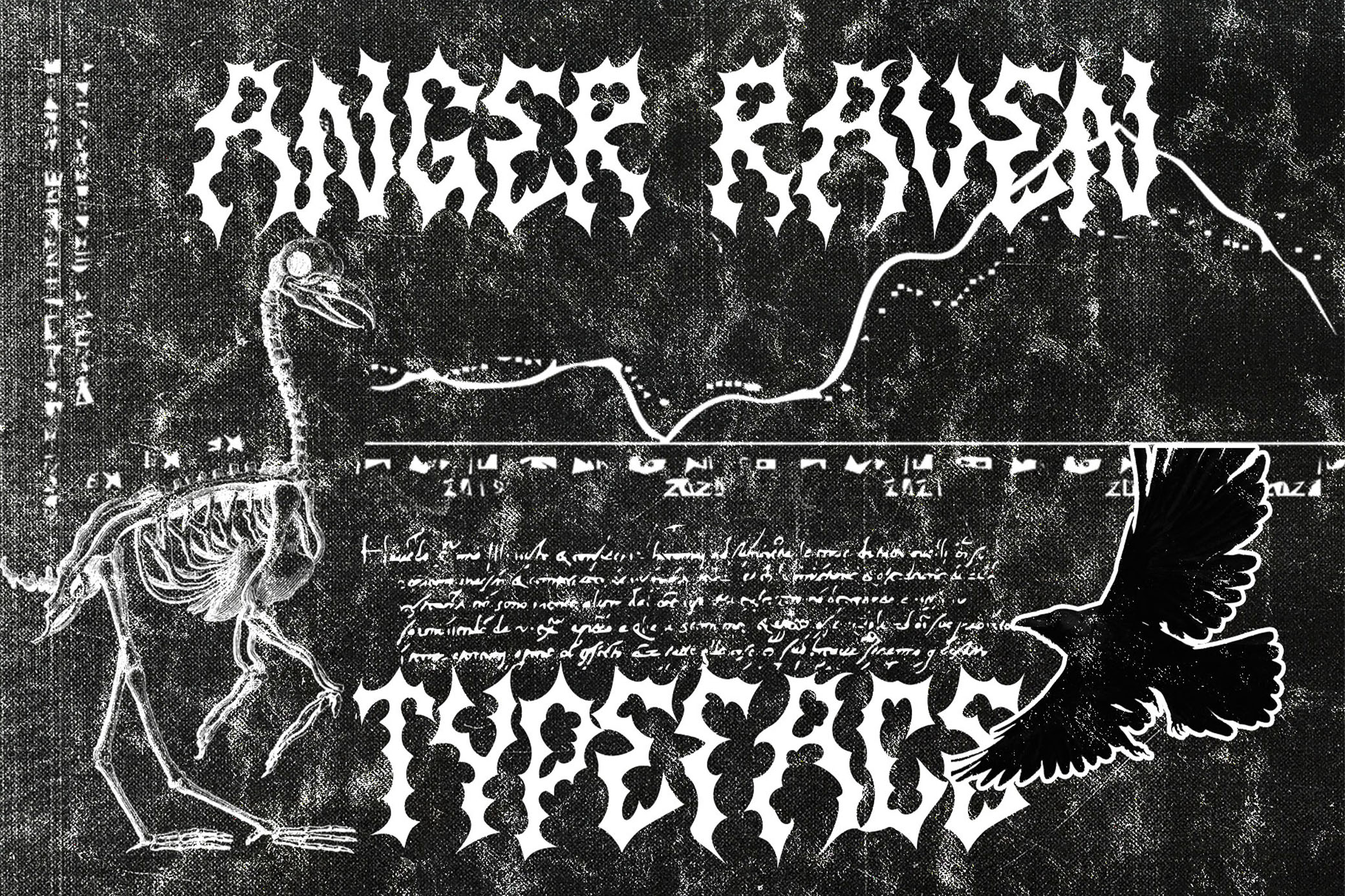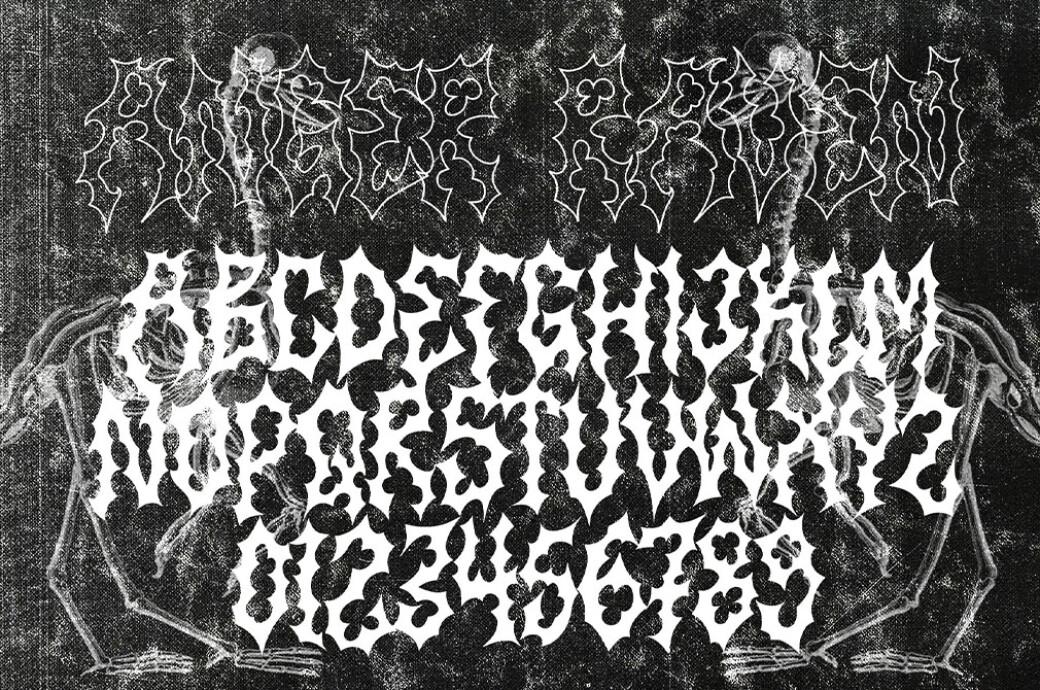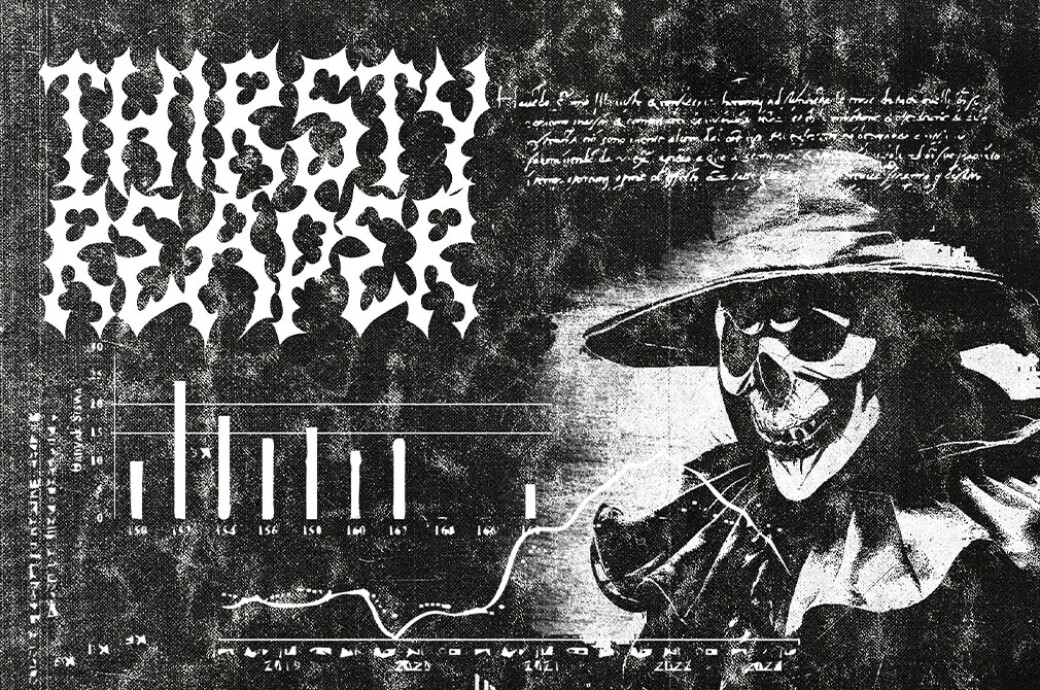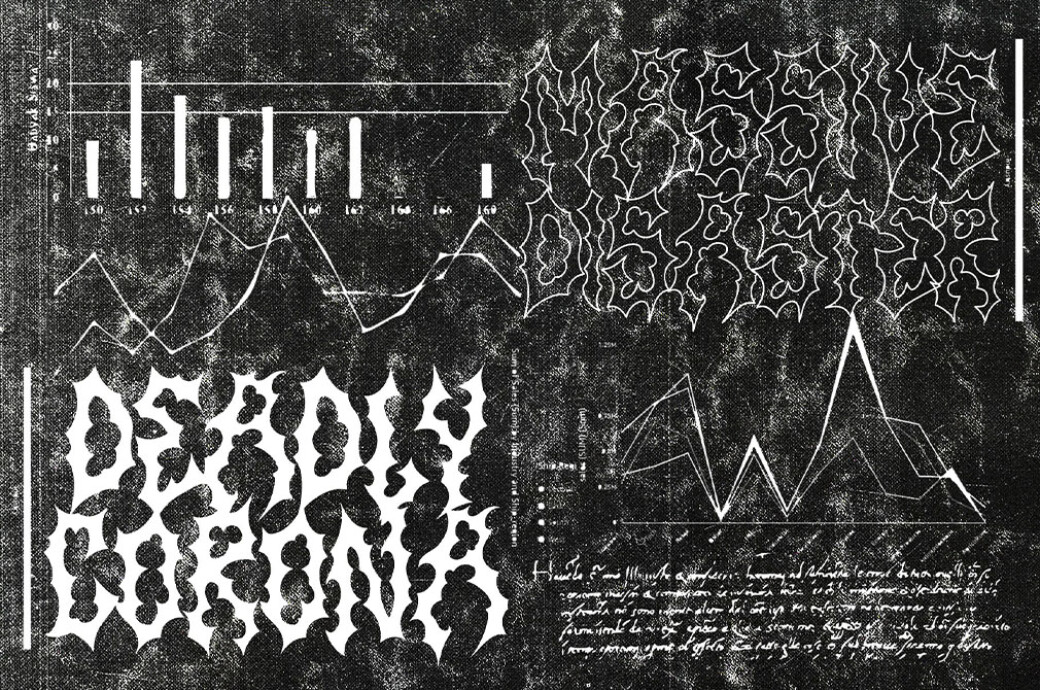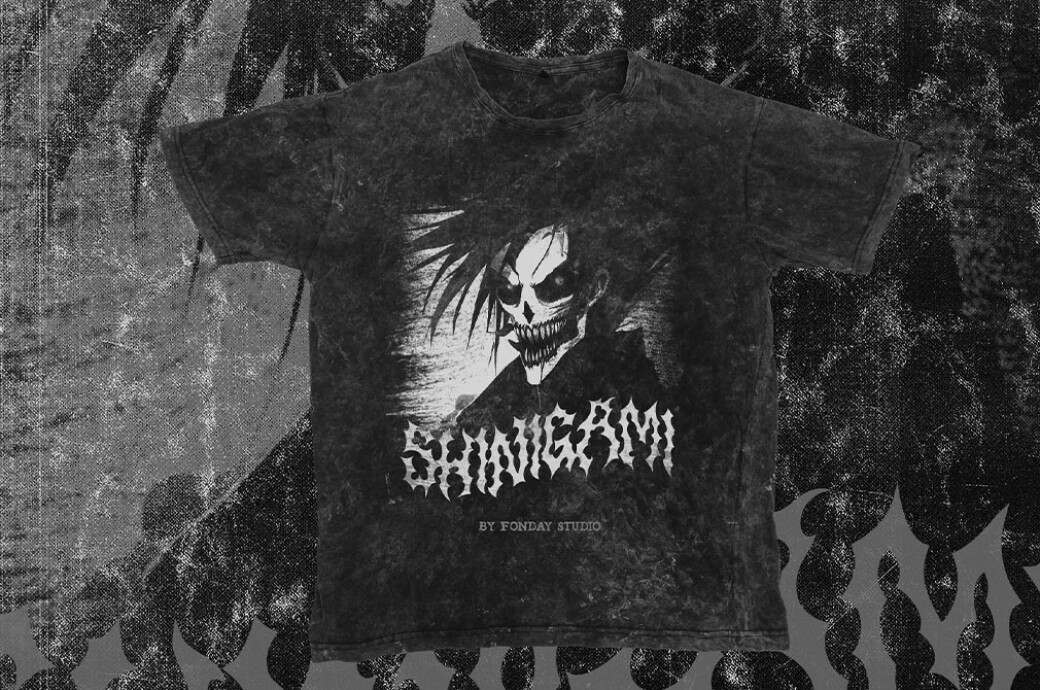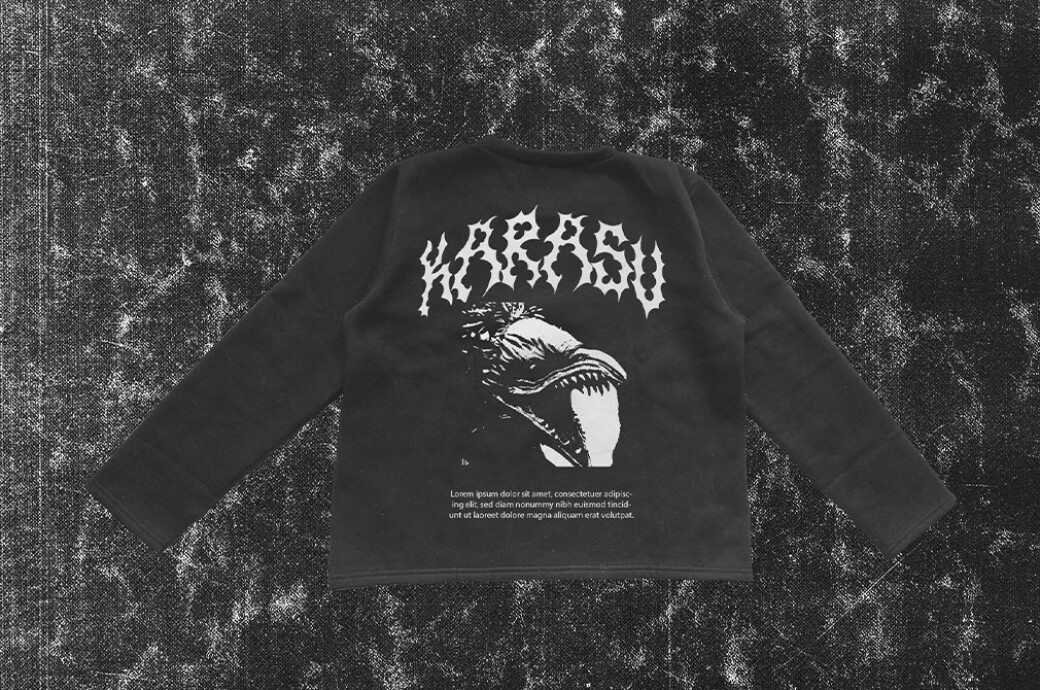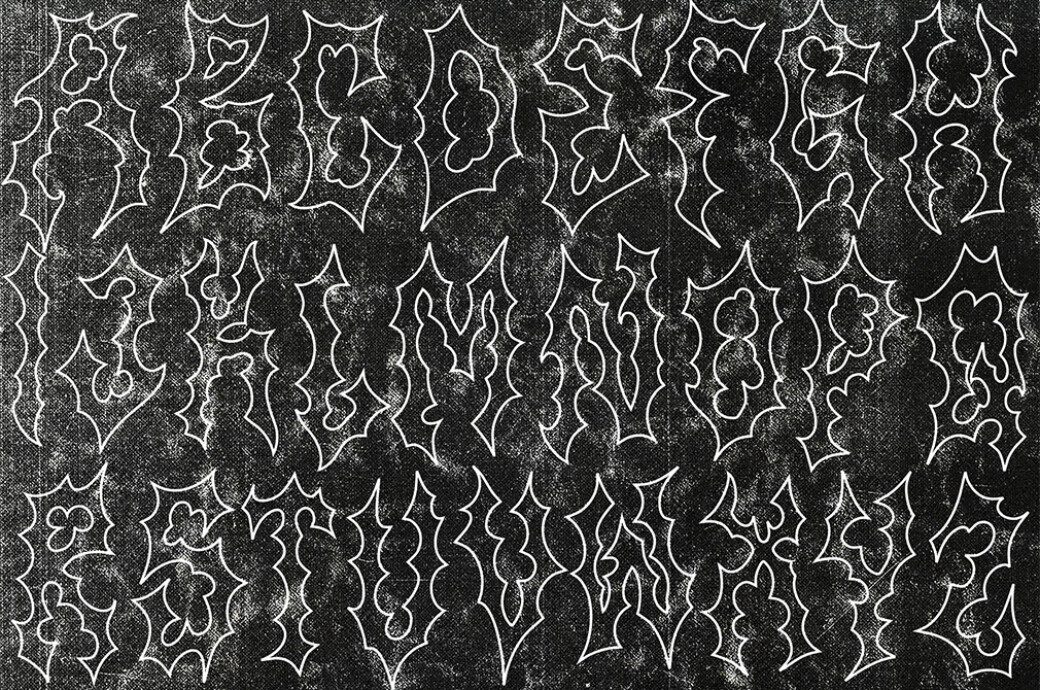
ANGER RAVEN – Death Metal Font
Anger Raven
Rage and metal spirit in every character — yes, we are talking about ANGER RAVEN that will not leave any rocker cold-hearted.Thanks to this font, your metal album coves, concert t-shirts, fan group social pages, and music band emblems will now get proper aggressive typography. At your disposal is a set of uppercase letters, numbers, and punctuation. Some grim graphics would be a great addition, just in case!